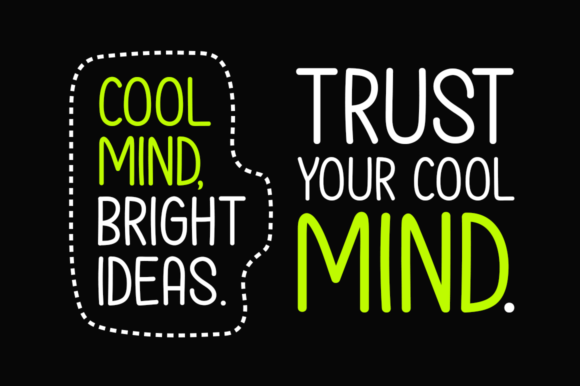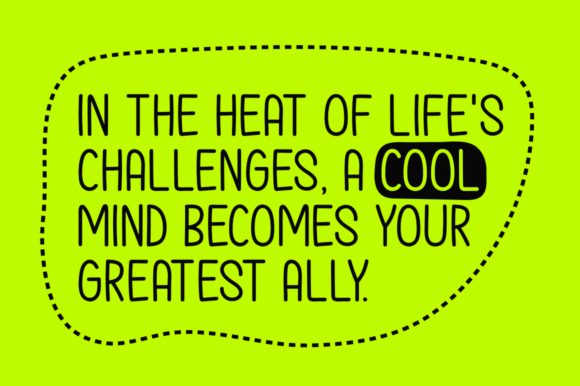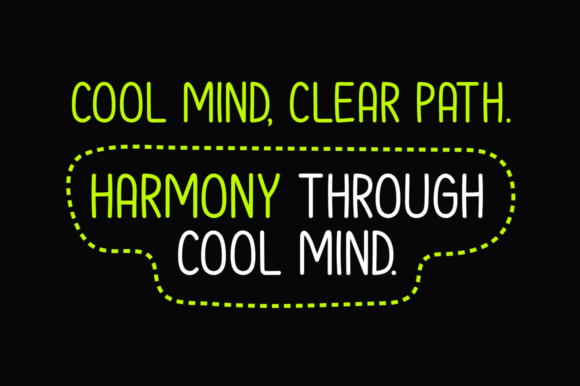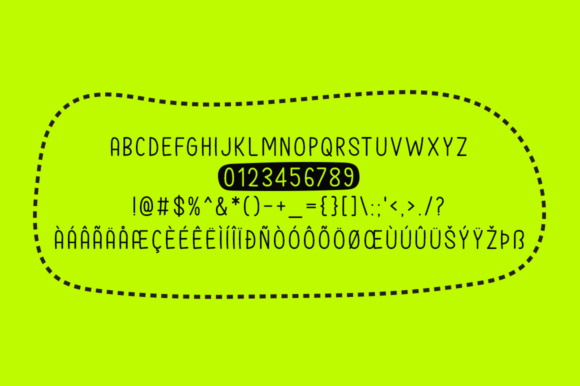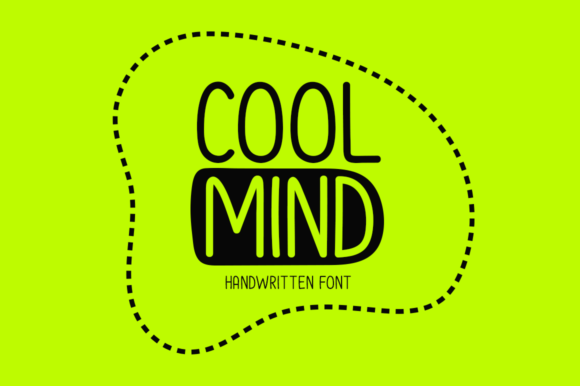
Introducing Cool Mind Font: The Adorable and Versatile Handwritten Typeface
Are you tired of using the same old fonts for your creative projects? Look no further than Cool Mind Font, a charming and straightforward handwritten typeface that’s sure to make your ideas stand out. With its unique blend of simplicity and personality, Cool Mind Font is the perfect addition to any designer’s toolkit.
What is Cool Mind Font?
Cool Mind Font is a beautifully crafted handwritten font that’s designed to be both adorable and easy to read. Its clean lines and simple shapes make it perfect for a wide range of projects, from crafting and scrapbooking to digital design and branding. Whether you’re creating a logo, a poster, or a social media graphic, Cool Mind Font is sure to add a touch of personality and whimsy to your work.
Key Features of Cool Mind Font
• Handwritten style: Cool Mind Font has a warm and personal feel that’s perfect for creating handmade or crafty designs.
• Simple and clean lines: The font’s simple shapes and clean lines make it easy to read and versatile enough to use in a variety of contexts.
• Adorable and playful: Cool Mind Font has a charming and whimsical feel that’s sure to add a touch of personality to your designs.
• Highly legible: Despite its playful style, Cool Mind Font is highly legible, making it perfect for use in body text or captions.
Uses for Cool Mind Font
One of the best things about Cool Mind Font is its versatility. Its simple and clean design makes it suitable for use in a wide range of projects, including:
• Crafting and scrapbooking: Cool Mind Font is perfect for adding a personal touch to your handmade crafts and scrapbook pages.
• Digital design: The font’s clean lines and simple shapes make it perfect for use in digital designs, such as social media graphics and blog posts.
• Branding and logos: Cool Mind Font’s unique blend of simplicity and personality makes it a great choice for logos and branding materials.
• Posters and flyers: The font’s playful style and high legibility make it perfect for use in posters and flyers.
Tips for Using Cool Mind Font
To get the most out of Cool Mind Font, here are a few tips to keep in mind:
• Use it with a contrasting background: Cool Mind Font’s simple design makes it perfect for use with a contrasting background, which can help it stand out.
• Experiment with different colors: The font’s playful style makes it perfect for use with a variety of colors, so don’t be afraid to experiment and find the perfect combination.
• Mix it with other fonts: Cool Mind Font’s versatility makes it perfect for use in combination with other fonts, which can add visual interest and personality to your designs.
Cool Mind Font is a unique and versatile handwritten typeface that’s perfect for designers and crafters looking to add a touch of personality to their work. With its simple and clean design, adorable and playful style, and high legibility, Cool Mind Font is sure to become a favorite in your design toolkit. So why not give it a try and see how it can help your ideas stand out?
Whether you’re creating handmade crafts, digital designs, or branding materials, Cool Mind Font is the perfect choice. Its wide range of uses and versatility make it a valuable addition to any designer’s collection. So go ahead, get creative, and see what amazing things you can create with Cool Mind Font!